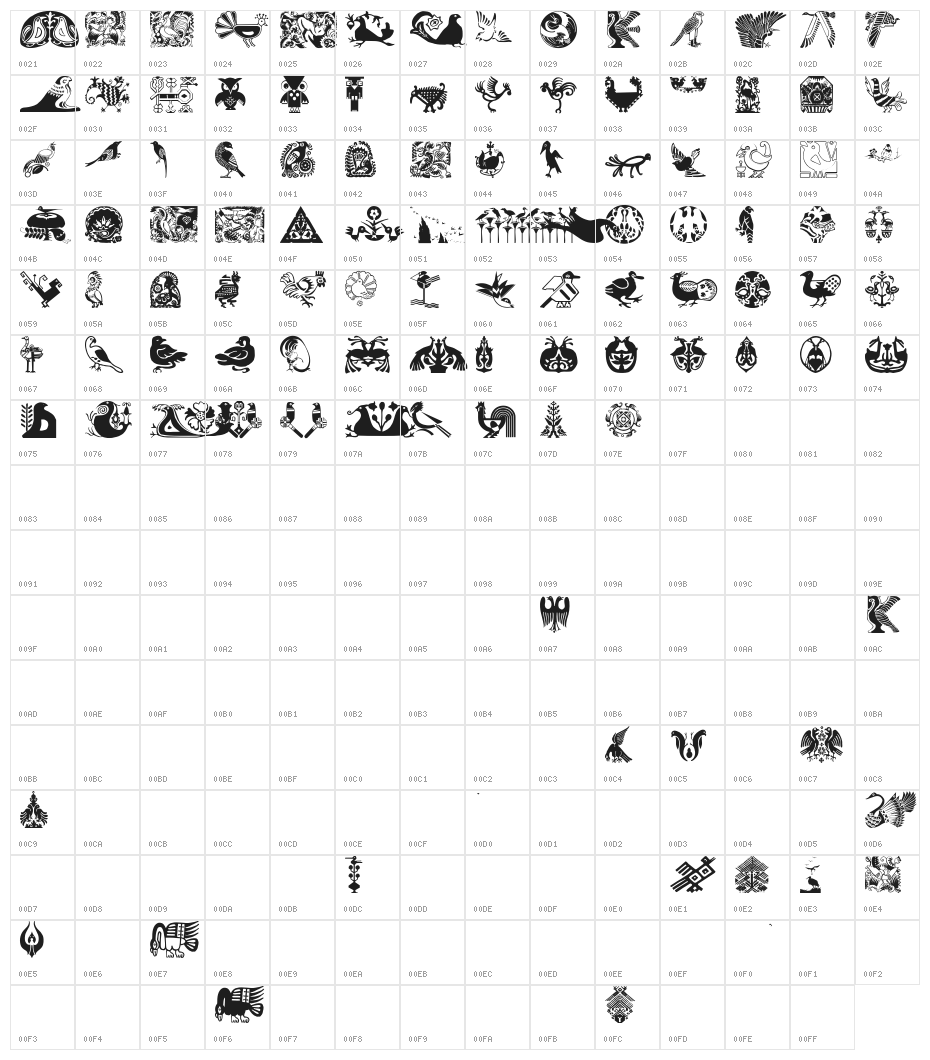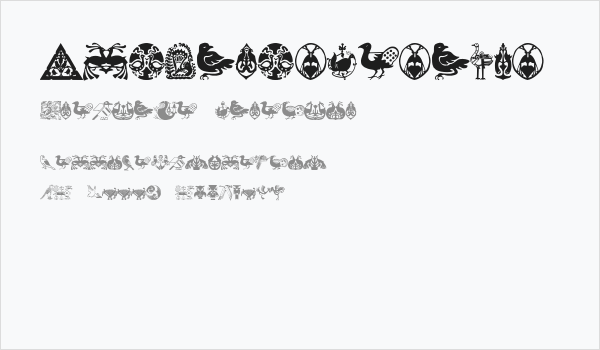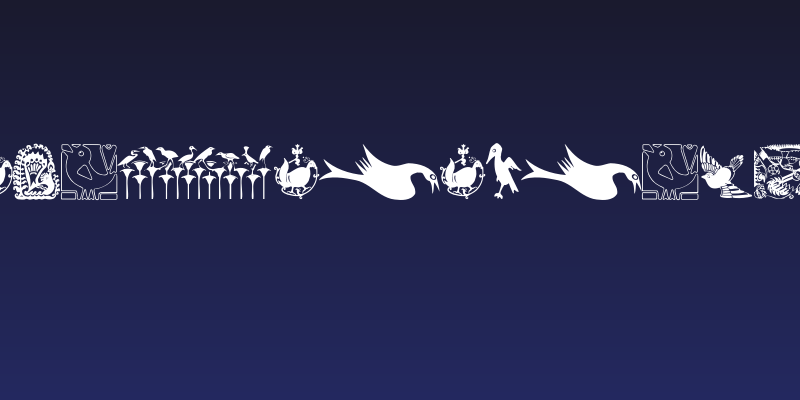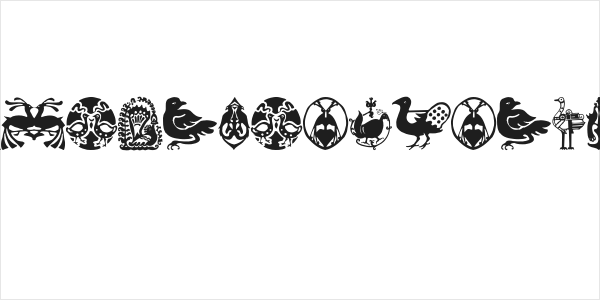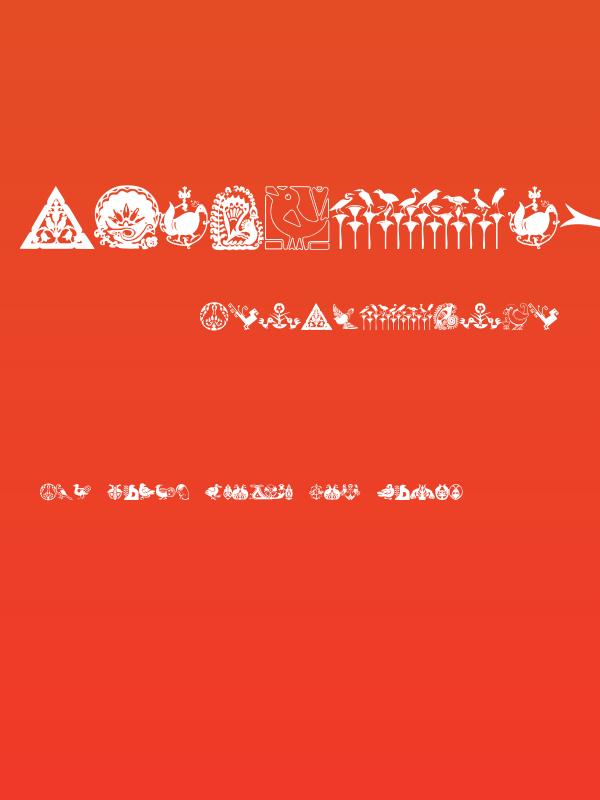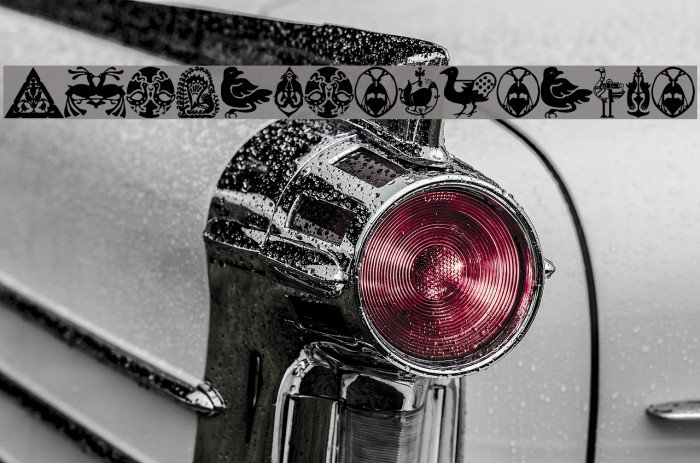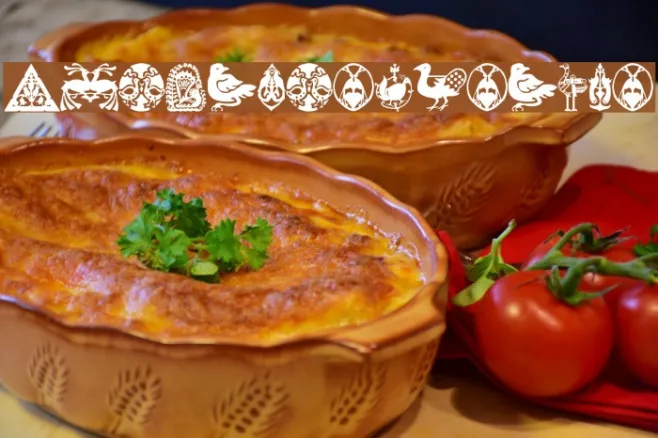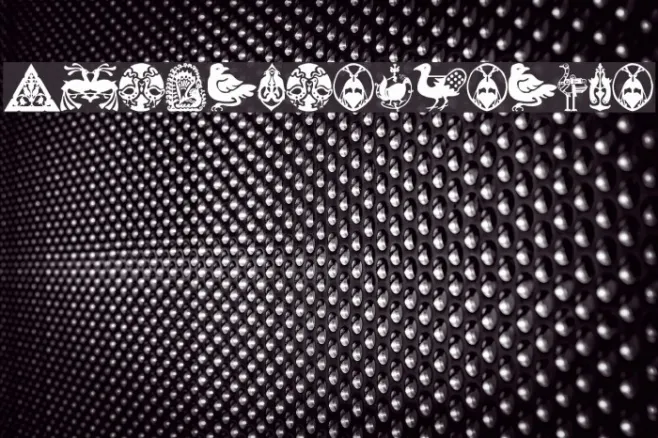
OldBirdsDesigns Font
OldBirdsDesigns Description
This font is a highly decorative and artistic typeface featuring intricate designs inspired by birds and nature. Each character is uniquely crafted with detailed illustrations, making it more of an art piece than a traditional font. The characters incorporate various bird motifs, floral elements, and abstract shapes, creating a whimsical and ornate appearance. This font is not suited for body text due to its complexity but serves as an excellent choice for artistic and decorative purposes. The overall style is reminiscent of vintage illustrations with a modern twist, offering a unique blend of nature-inspired artistry.
| Proposed Projects | Ideal for artistic projects, decorative headings, unique branding, and creative invitations. |